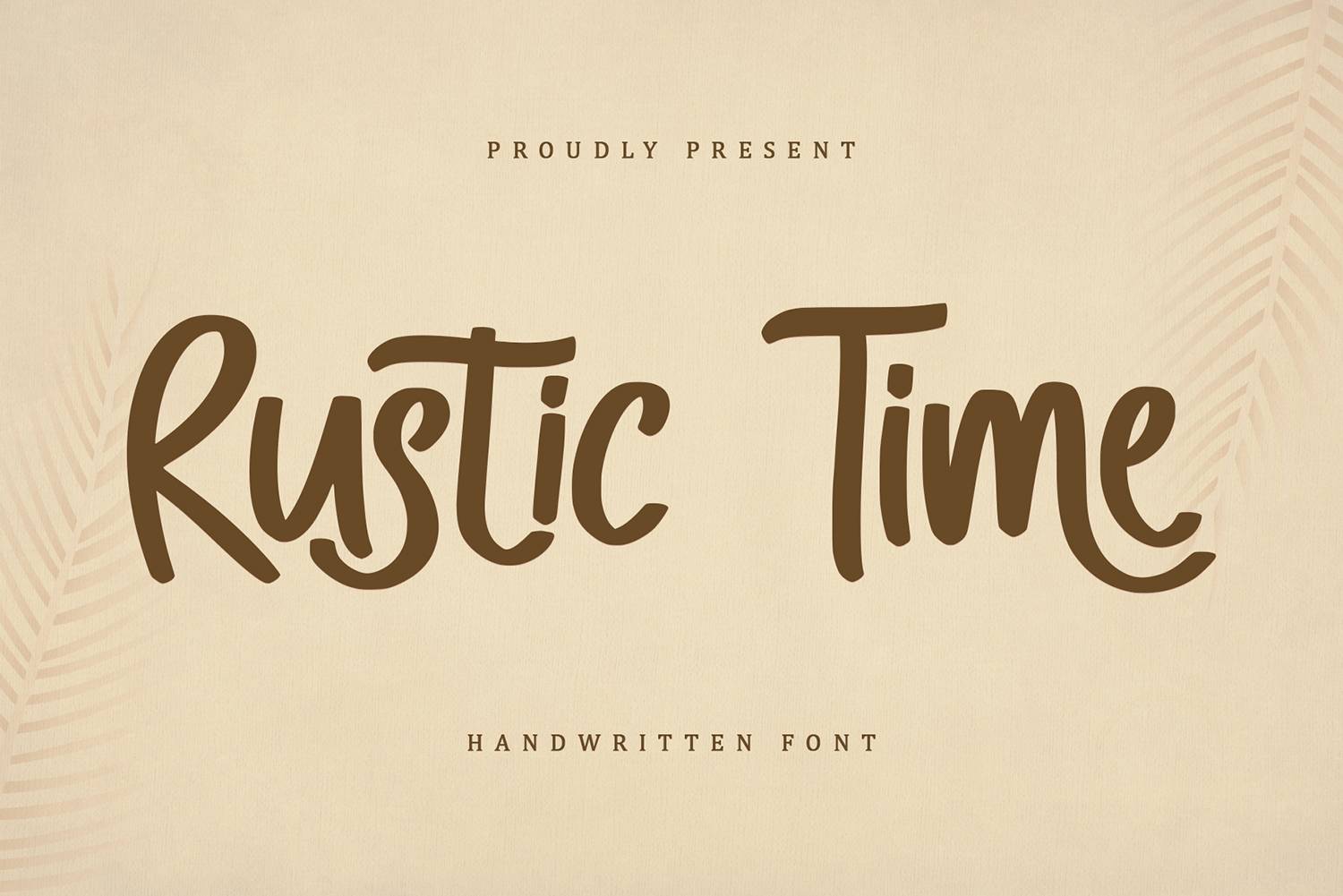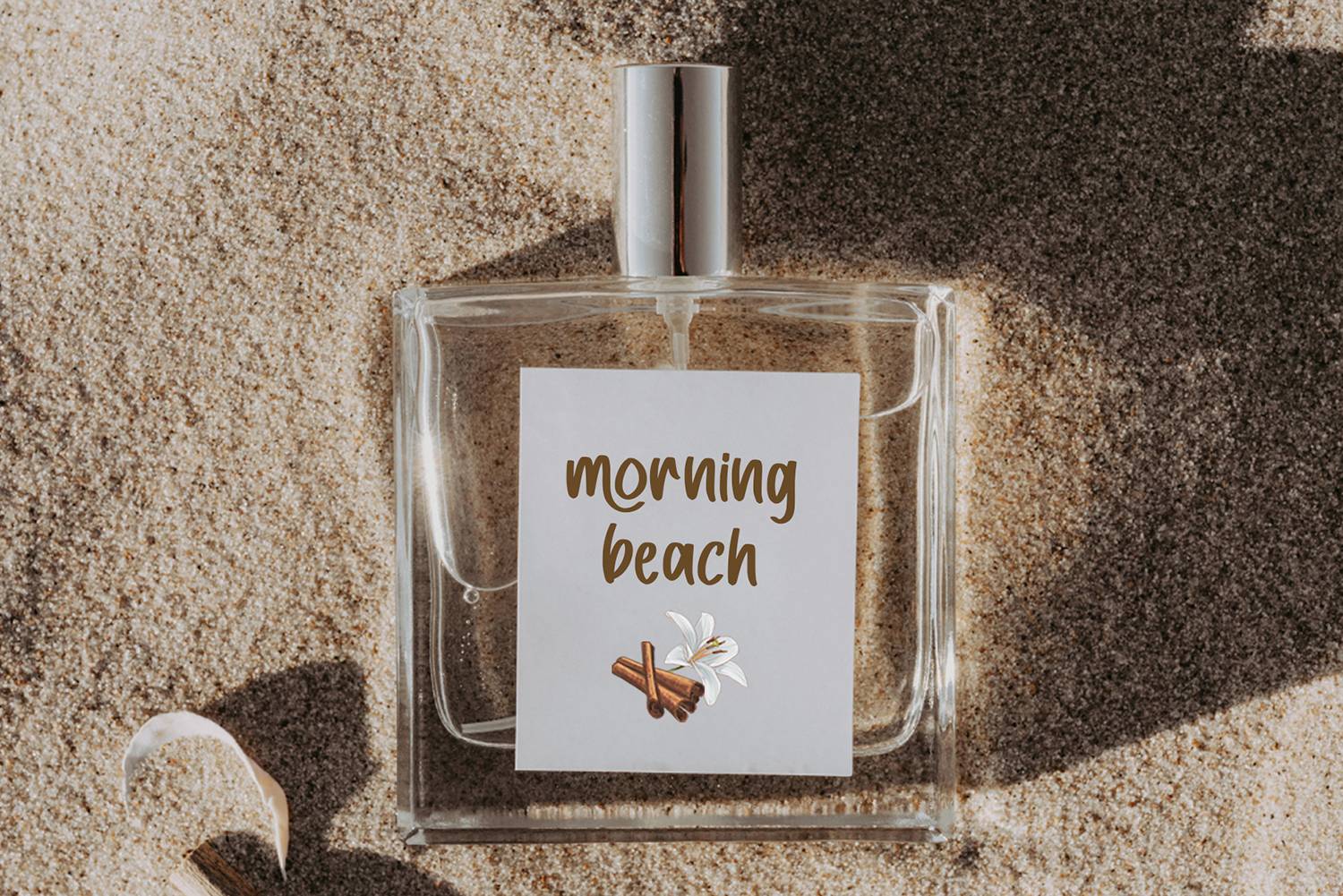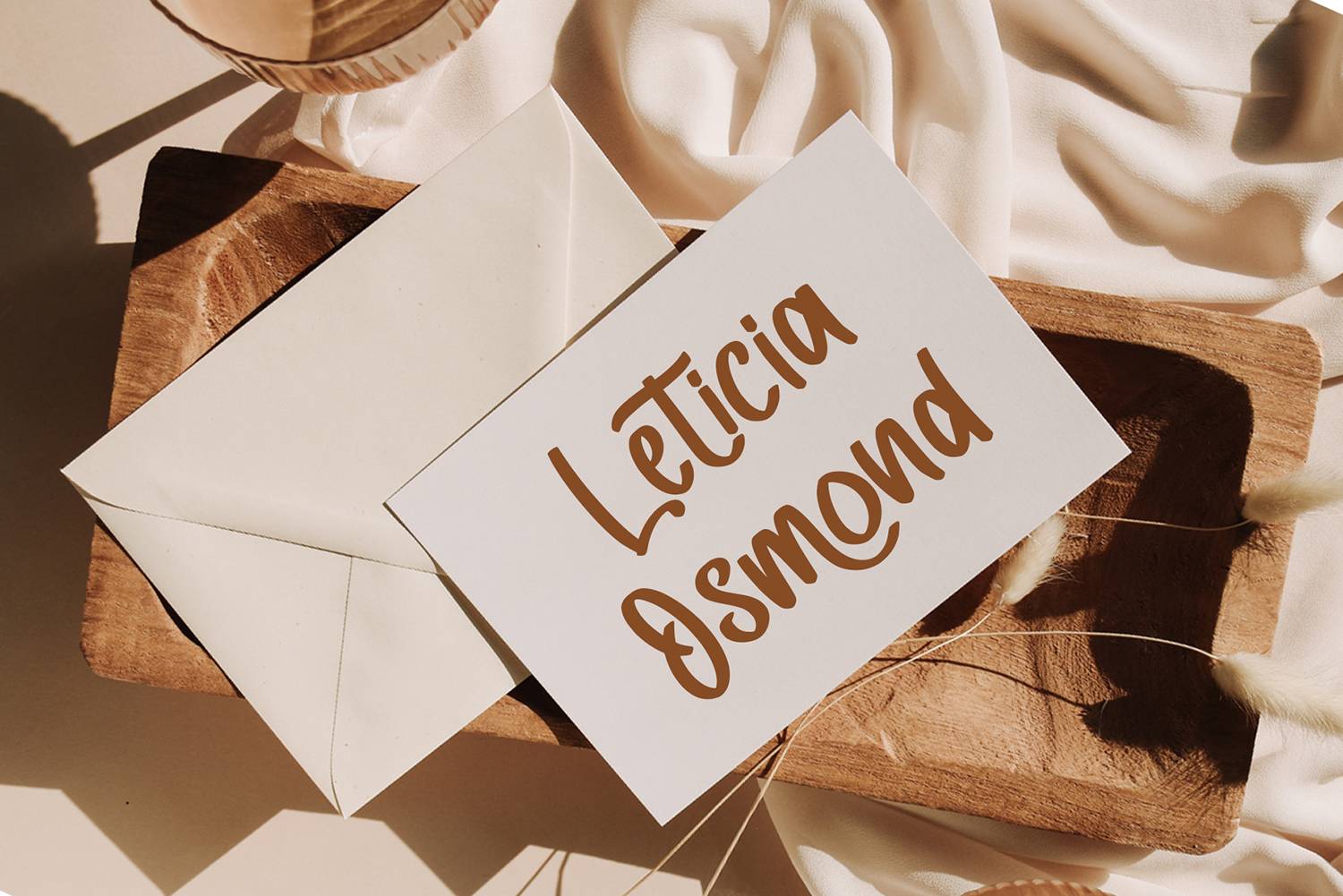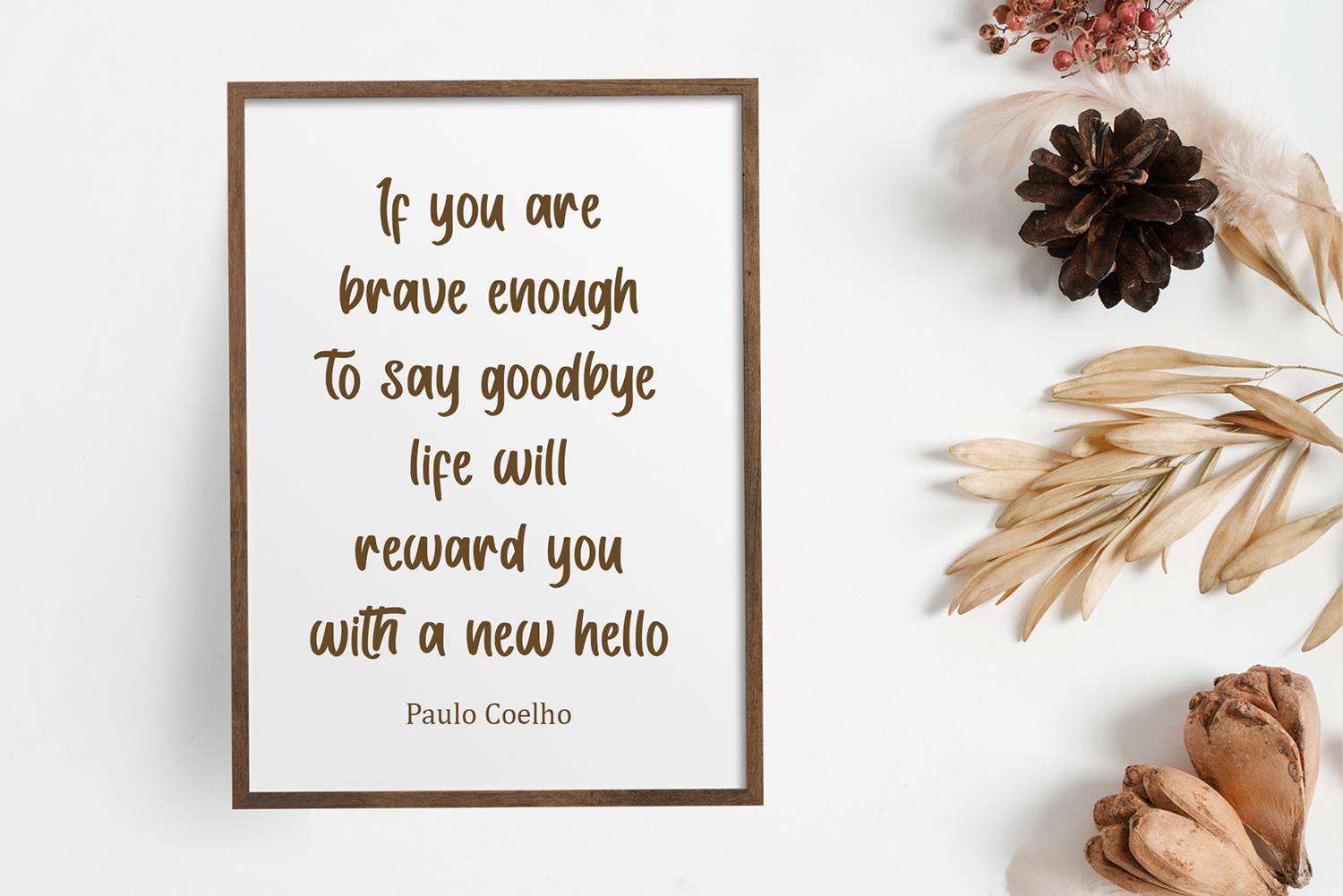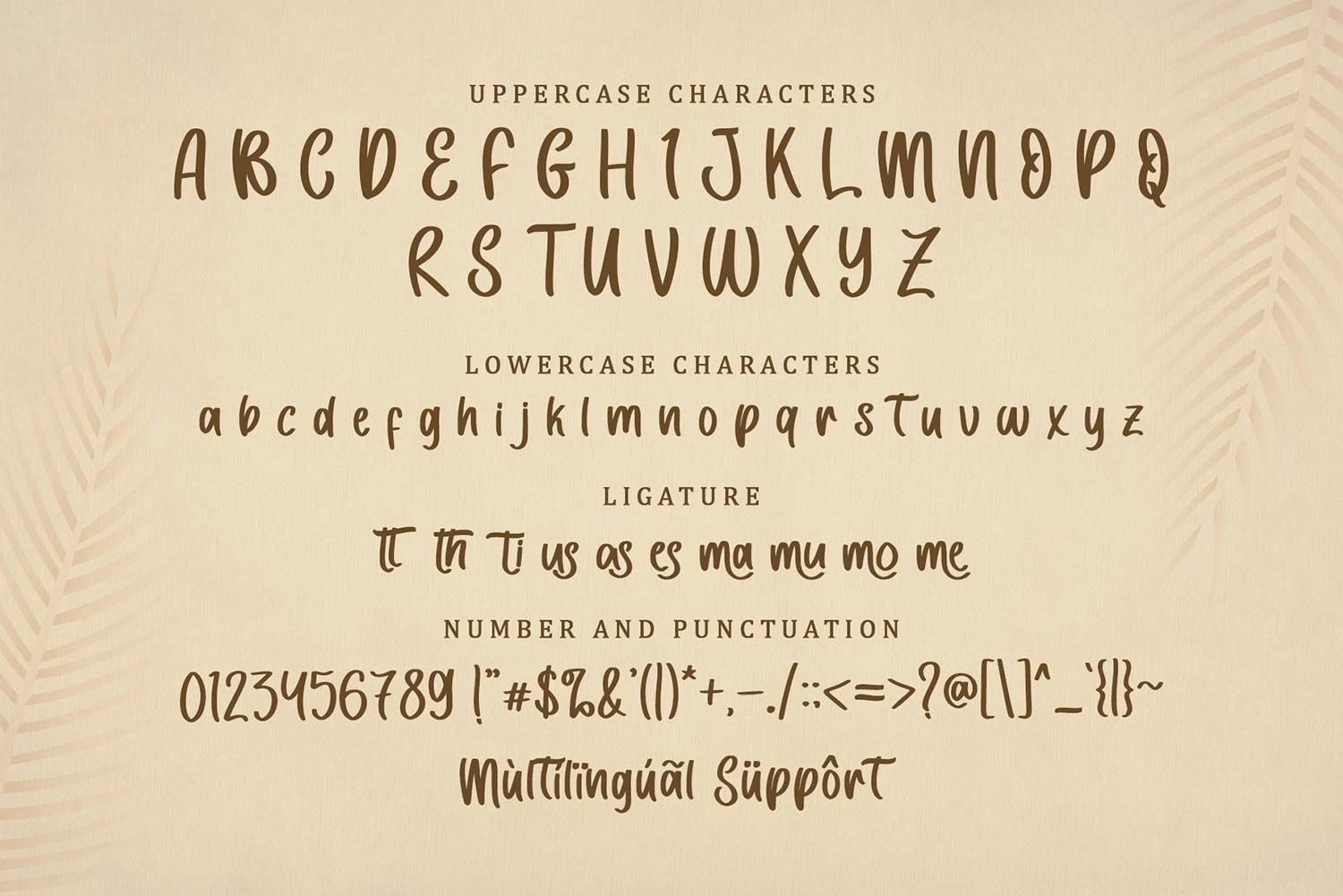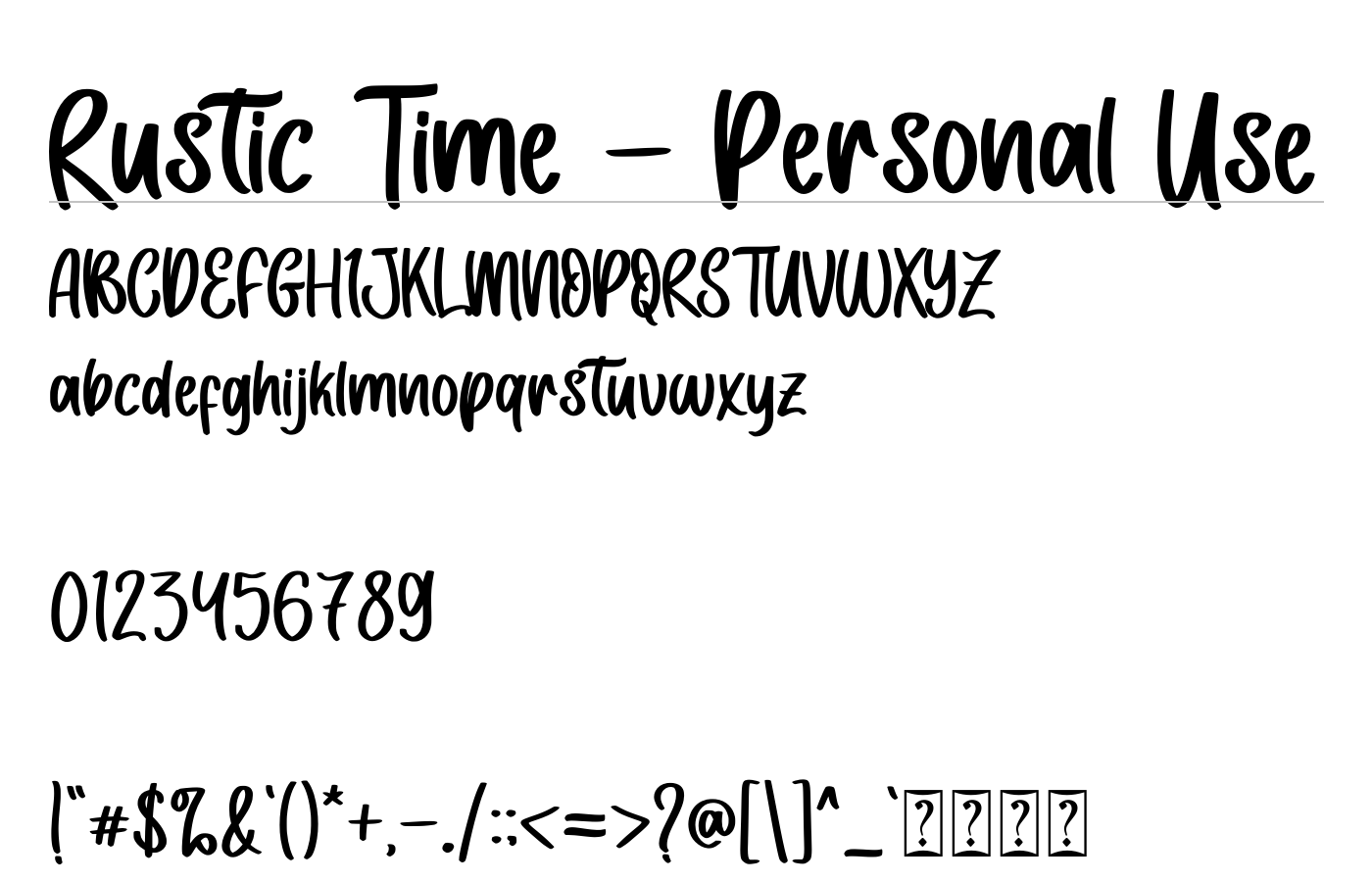
Rustic Time is a playful, hand-drawn script font with a casual and friendly vibe, characterized by its tall, slightly condensed letterforms and consistent stroke weight. Its informal style makes it perfect for creative projects that want to convey warmth and personality, such as branding, invitations, and social media graphics. This font's approachable look works especially well in designs aiming for a rustic, handmade feel.
Rustic Time Font
About Rustic Time Font